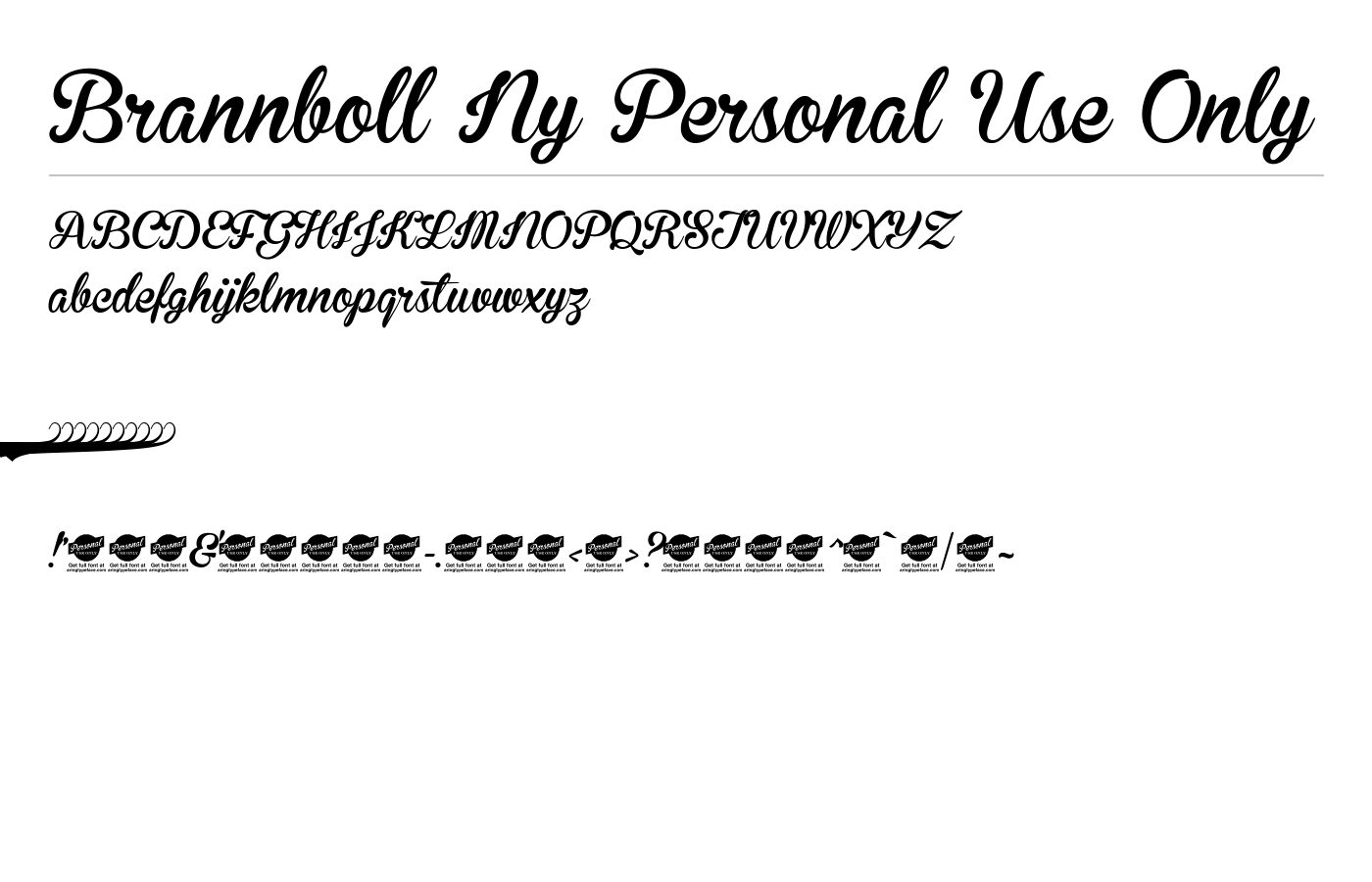
Brannboll Ny is a stylish script font with smooth, flowing strokes and a casual elegance that combines softness with subtle calligraphic flair. Its moderate weight and balanced letterforms make it ideal for adding a friendly yet refined touch to invitations, branding, and headlines that seek a personal, approachable feel. This font works especially well for creative projects that want to convey warmth and charm without sacrificing sophistication.
| Designer | Måns Grebäck |